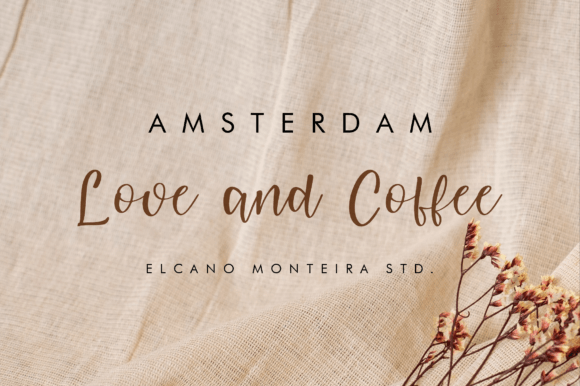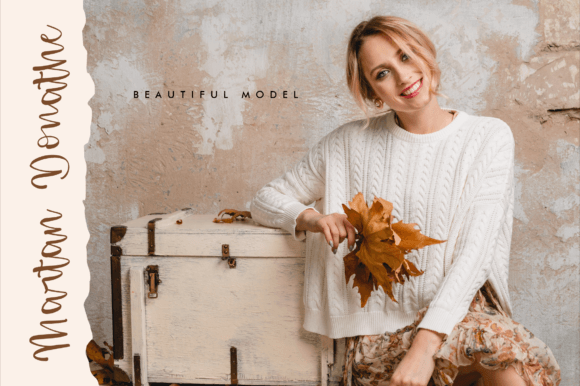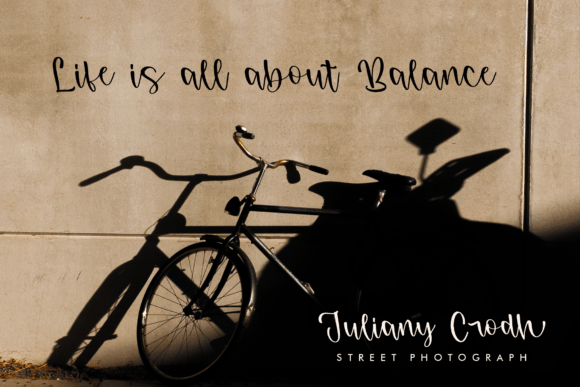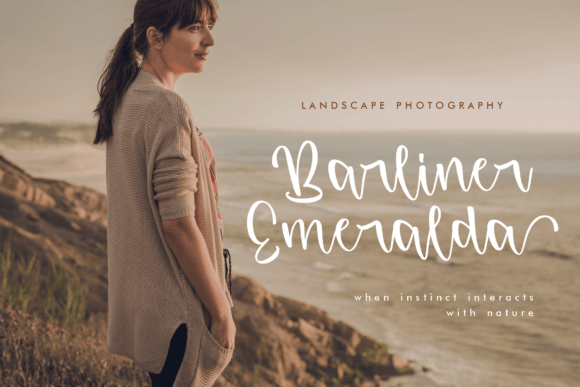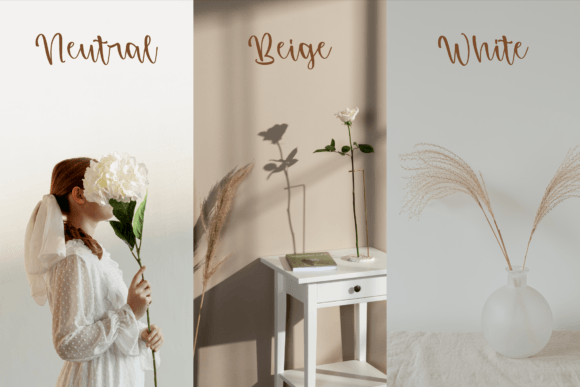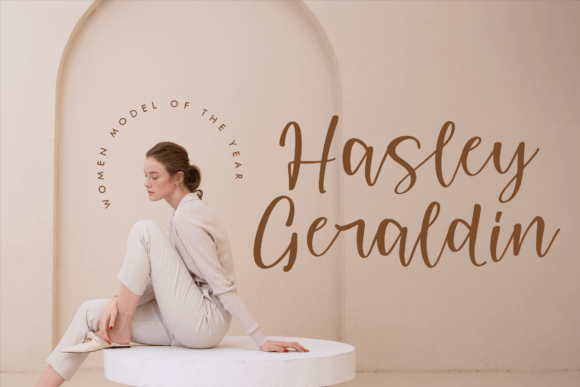
Introduction to Madhony Charlotte Font
Madhony Charlotte is an elegant script font, perfect for logos, branding projects, homeware designs, product packaging, mugs, quotes, posters, shopping bags, t-shirts, book covers, name card, invitation cards, greeting cards, label, photography, watermark, special events, and all your other lovely projects that need a beautiful script taste.
Key Features of Madhony Charlotte Font
Why Choose Madhony Charlotte Font?
Madhony Charlotte Font offers exceptional quality and versatility, making it a valuable addition to your design toolkit. Whether you’re creating for personal projects or commercial use, Madhony Charlotte Font delivers professional results.